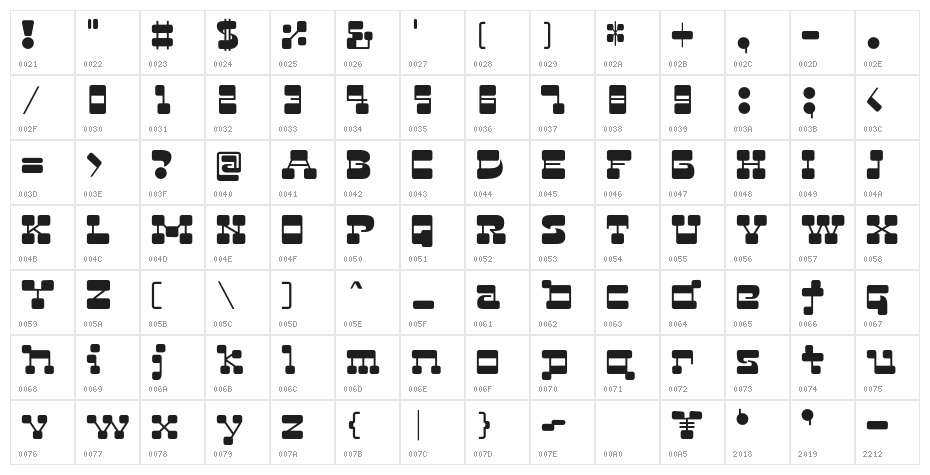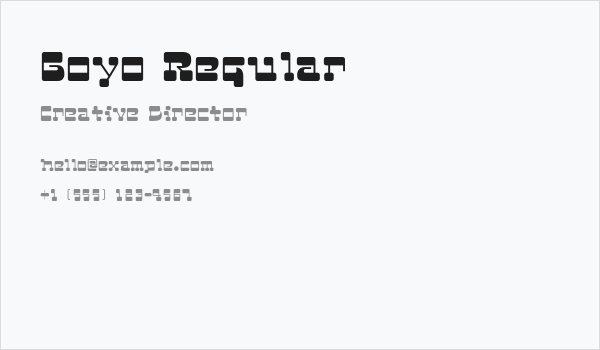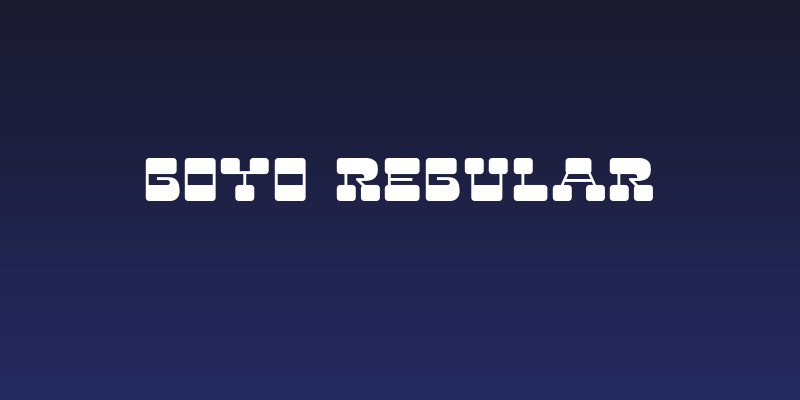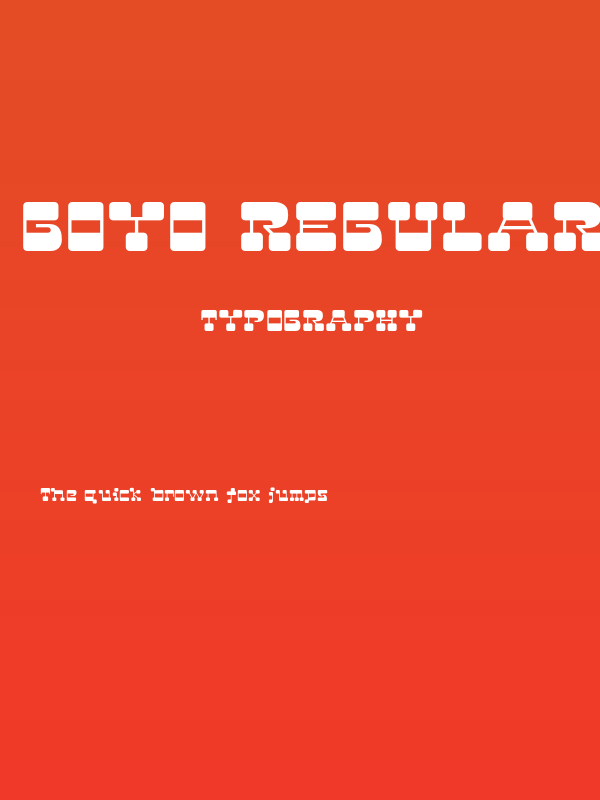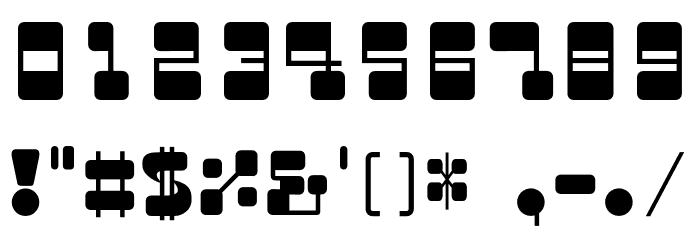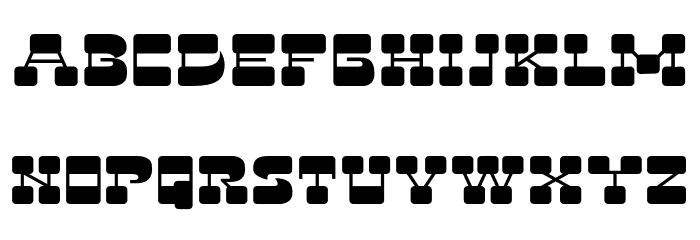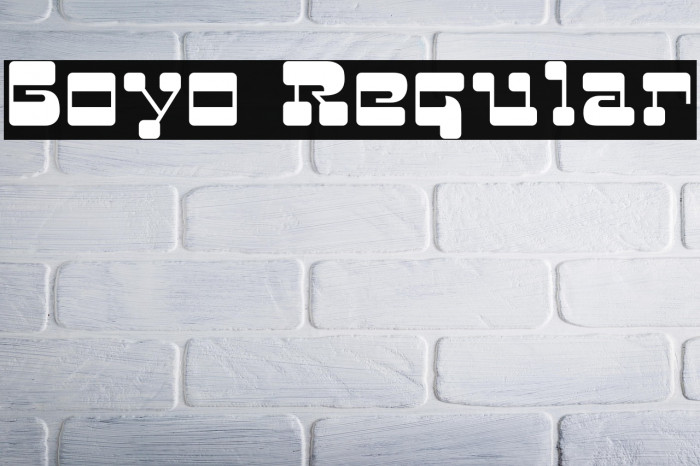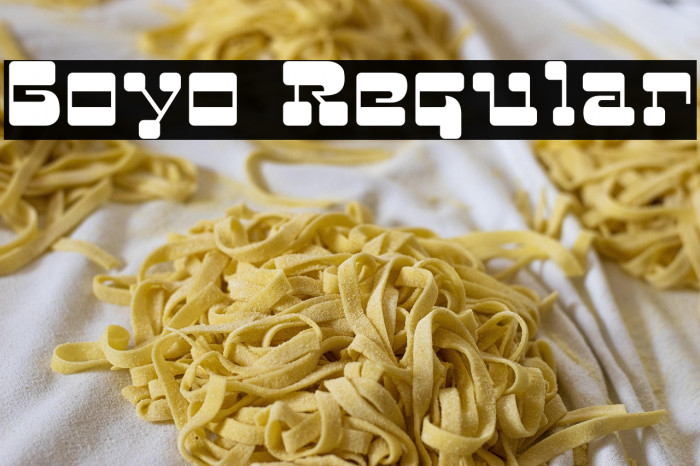
Goyo Regular Font
| Schriften Familie | Goyo |
| Kategorien | Futuristic |
| Anwendungsfall | Logos, Headlines, Posters |
| Vorgeschlagene Projekte | Ideal for branding, posters, and digital media that require a modern and striking appearance. |